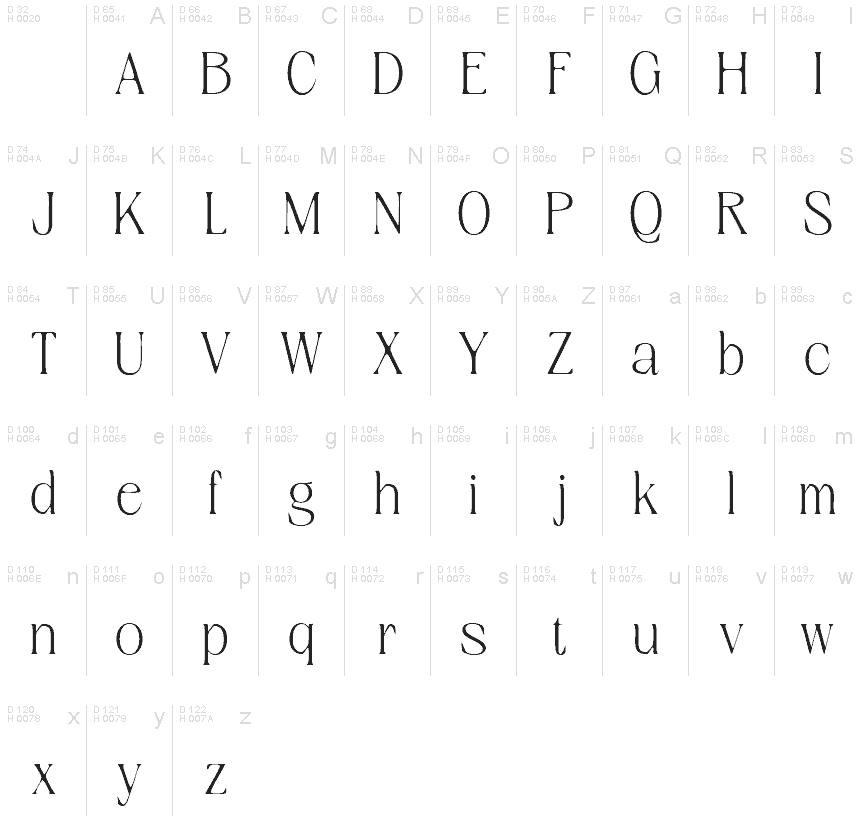
CSAsherDrawn-Regular Demo
CS Asher Drawn font is a sleek serif font by Craft Supply Co. This elegant typeface carries sophistication and refinement in its style to form an excellent design tool for those wishing to achieve modernity in their projects. The provided thin weight gives an extra touch of warmth and subtlety.
CS Asher is a free serif font that can improve both digital and printed designs within logos, branding designs, identity packaging, magazines, advertising hoardings, signage boards, posters and flyers. It also fits websites, applications interfaces as well as blogs or other publications online.